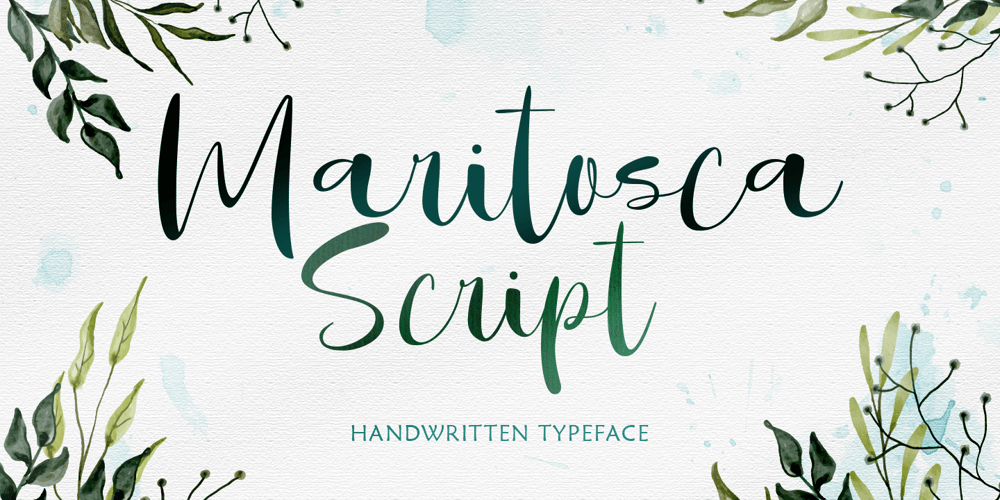
Maritosca
Maritosca font
Maritosca Font Family was designed by Hendry Juanda and published by Letterhend. Maritosca contains 1 styles and family package options. Introducing, Maritosca Script – a typeface inspired by natural handwritten.. This type of font perfectly made to be applied especially in logo, and the other various formal forms such as invitations, labels, logos, magazines, books, greeting / wedding cards, packaging, fashion, make up, stationery, novels, labels or any type of advertising purpose.Features : uppercase & lowercase numbers and punctuation multilingual alternates and ligatures swashes PUA encoded We highly recommend using a program that supports OpenType features and Glyphs panels like many of Adobe apps and Corel Draw, so you can see and access all Glyph variations.